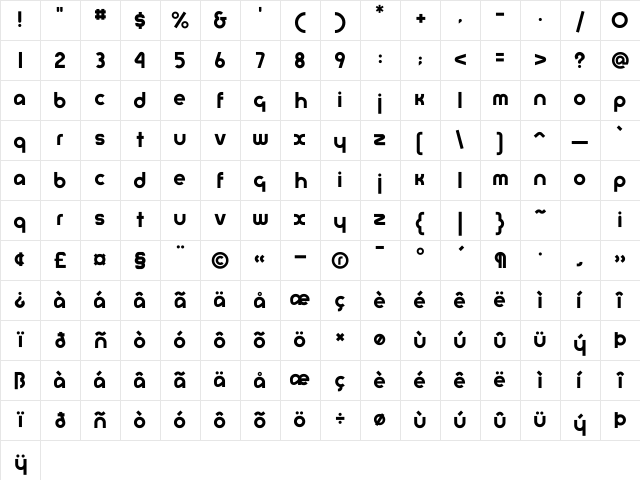
P22 Bayer Universal Regular
Design Context for P22 Bayer Universal
P22 Bayer Universal is a composed and adaptable typeface that performs quietly and consistently across a wide range of design contexts.
Pro Tip: Use P22 Bayer Universal in both headline and body roles to test its range before committing to a single application.